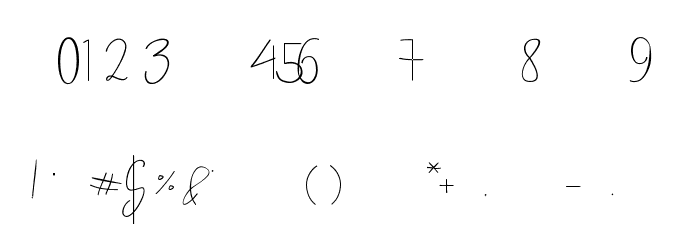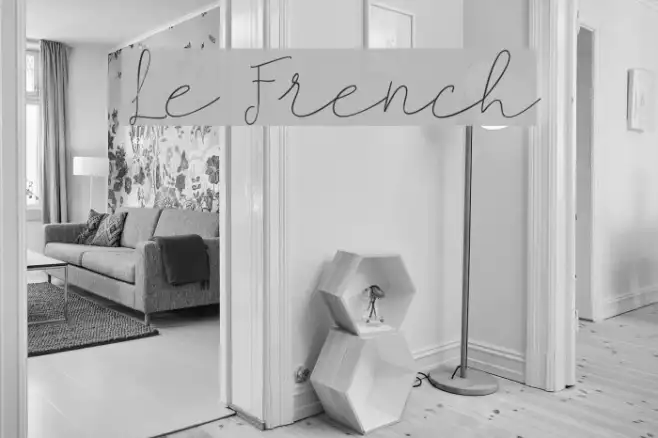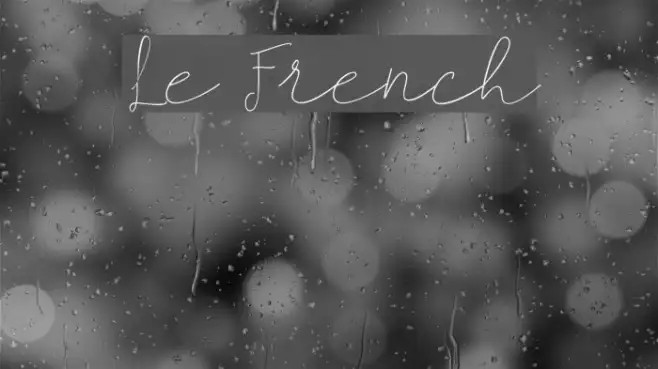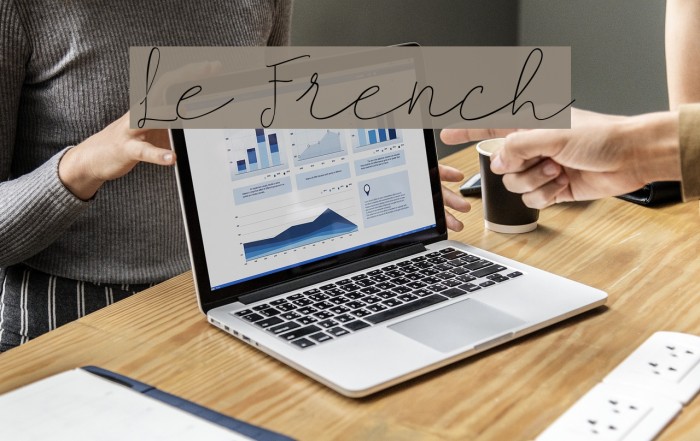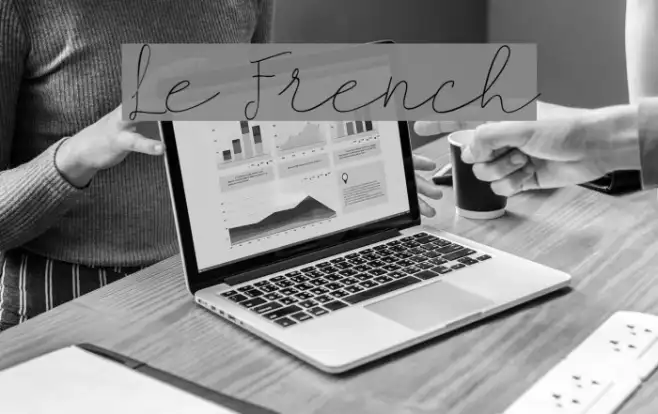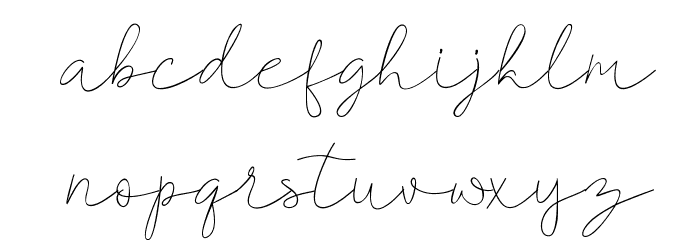
Le French Font
This elegant script font features a delicate and flowing design, characterized by its thin, graceful strokes and fluid connections between letters. The uppercase letters exhibit a sophisticated flair with subtle loops and curves, while the lowercase letters maintain a consistent, smooth flow. The numerals are simple yet stylish, complementing the overall aesthetic. Special characters are thoughtfully integrated, maintaining the font's cohesive style. This font exudes a sense of refinement and elegance, making it ideal for projects that require a touch of sophistication.
A delicate and elegant script font with flowing, graceful strokes.
• Proposed Projects: Ideal for wedding invitations, elegant branding, personal stationery, and high-end product packaging.